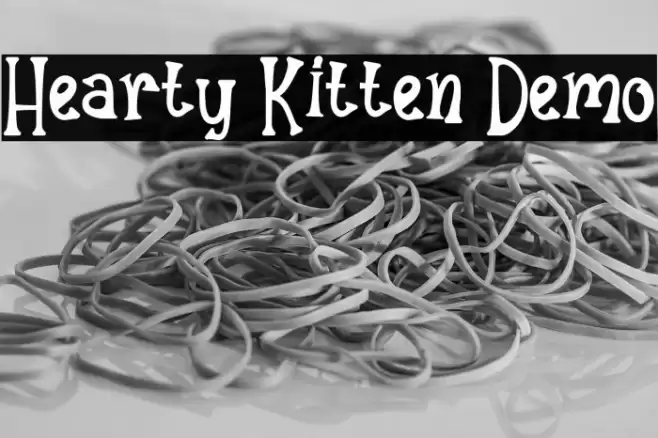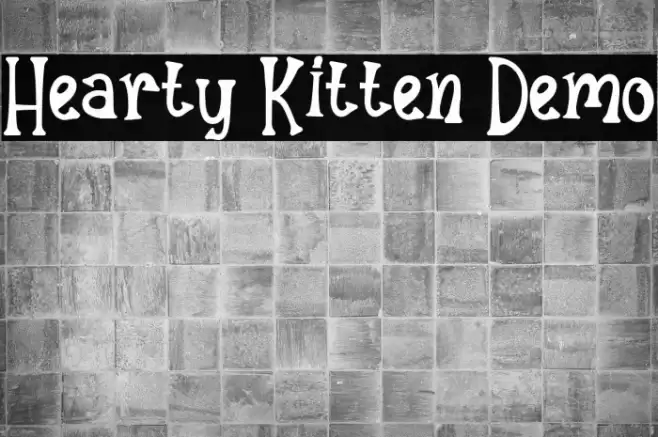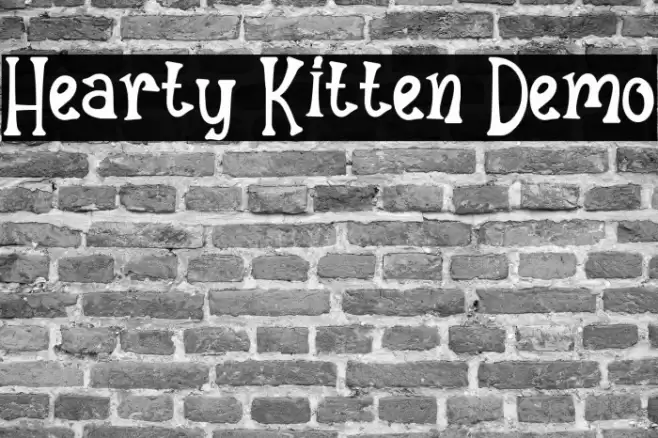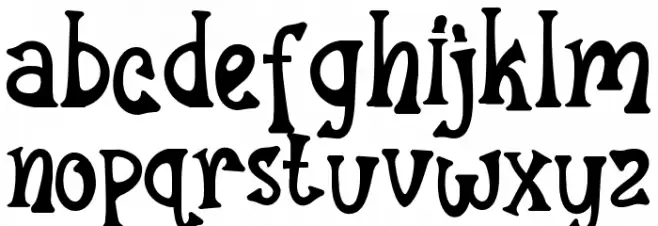
Hearty Kitten Demo Font
Hearty Kitten Demo Description
This playful and whimsical font features a hand-drawn style with uneven strokes and a slightly irregular baseline, giving it a lively and dynamic appearance. The uppercase letters are bold and expressive, with unique curves and angles that add character. The lowercase letters maintain a consistent style, with some letters featuring charming loops and swirls. The numbers and special characters are designed to match the overall playful theme, making them suitable for creative projects. The font's distinct personality makes it ideal for designs that require a touch of fun and creativity.
A playful, hand-drawn font with whimsical and expressive characters from Valentine's Day fonts.
- Proposed Projects: Ideal for children's books, playful branding, greeting cards, and creative posters.
- Use Case: Logos, Headlines, Posters